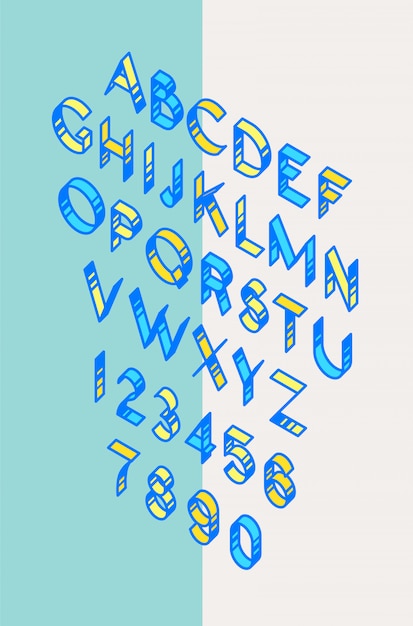
Isometric alphabet 3d bold uppercase latin letters and numbers geometric futuristic typography cubic straight block english font different angles simple abc isometry collection vector isolated set